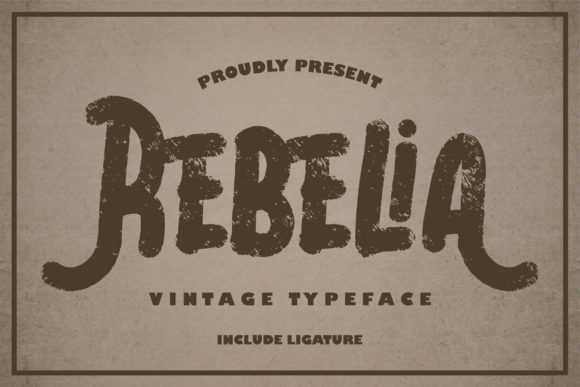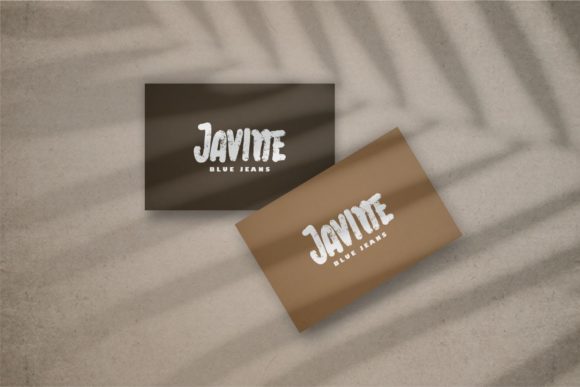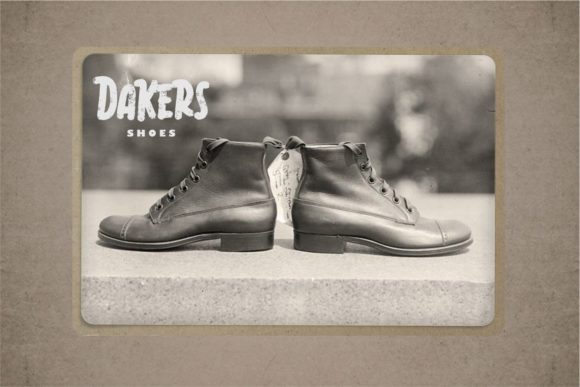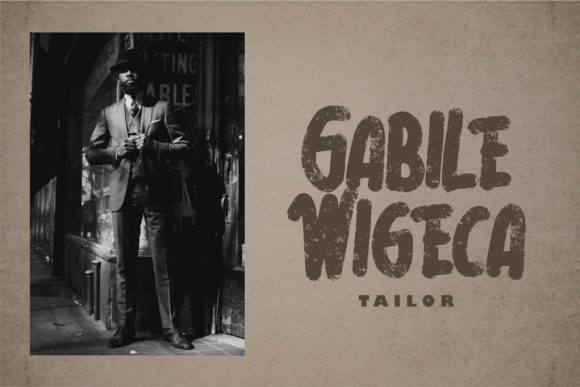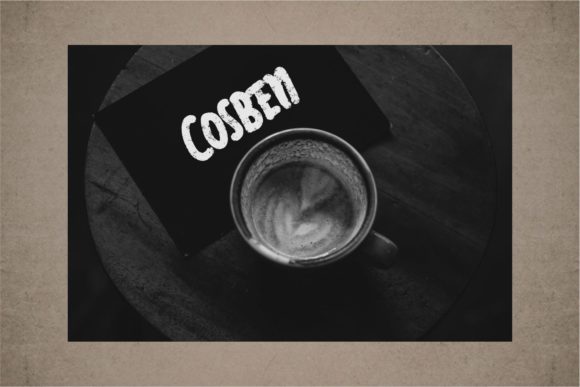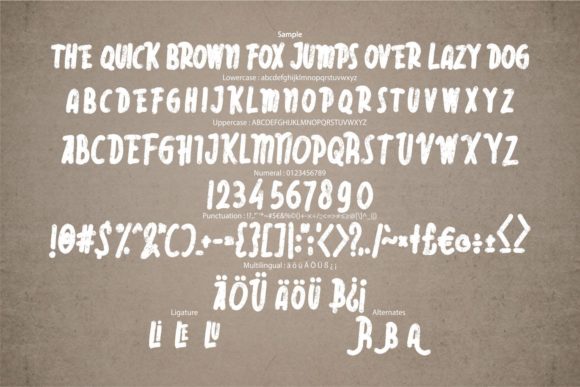
Rebelia Font
About Rebelia Font
Rebelia is a beautiful and unique handwritten font, created with the help of a thick brush pen. Simple and a little bit quirky, this font will match a wide variety of designs.